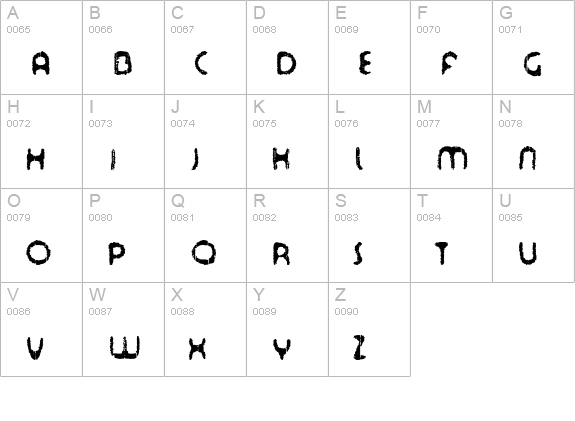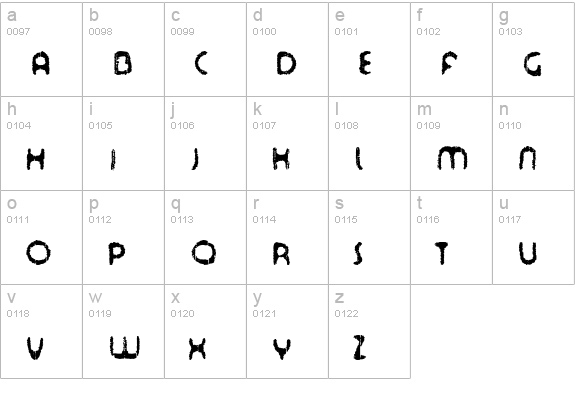
Tour de Font is a visually stunning font that captures the spirit of adventure and exploration. Its unique design combines elegance with a touch of whimsy, making it the perfect choice for any creative project. With its graceful curves and bold lines, Tour de Font commands attention and adds a touch of sophistication to any text. But what sets Tour de Font apart is its availability. Unlike many other fonts on the market, Tour de Font is completely free. That's right, you can download this incredible font for absolutely no cost at FontsMarket.com. Whether you're a professional designer or a hobbyist, Tour de Font is yours to use and enjoy without any restrictions. The versatility of Tour de Font is truly remarkable. It works beautifully in both digital and print media, allowing you to effortlessly incorporate it into your graphic design, branding, or advertising projects. Its legibility and readability make it a great choice for headlines, titles, and body text alike. With Tour de Font, you have the freedom to let your creativity soar. Imagine the possibilities with Tour de Font. Whether you're designing a website, creating a logo, or crafting a brochure, this font will elevate your work to new heights. Its timeless elegance and modern appeal make it a truly versatile choice that can adapt to any style or theme. So why wait? Experience the beauty and versatility of Tour de Font today. Download it for free at FontsMarket.com and unlock a world of endless creative possibilities. Don't miss out on this incredible opportunity to enhance your designs with a font that is both visually striking and readily available. Embrace the freedom of Tour de Font and let your imagination run wild.